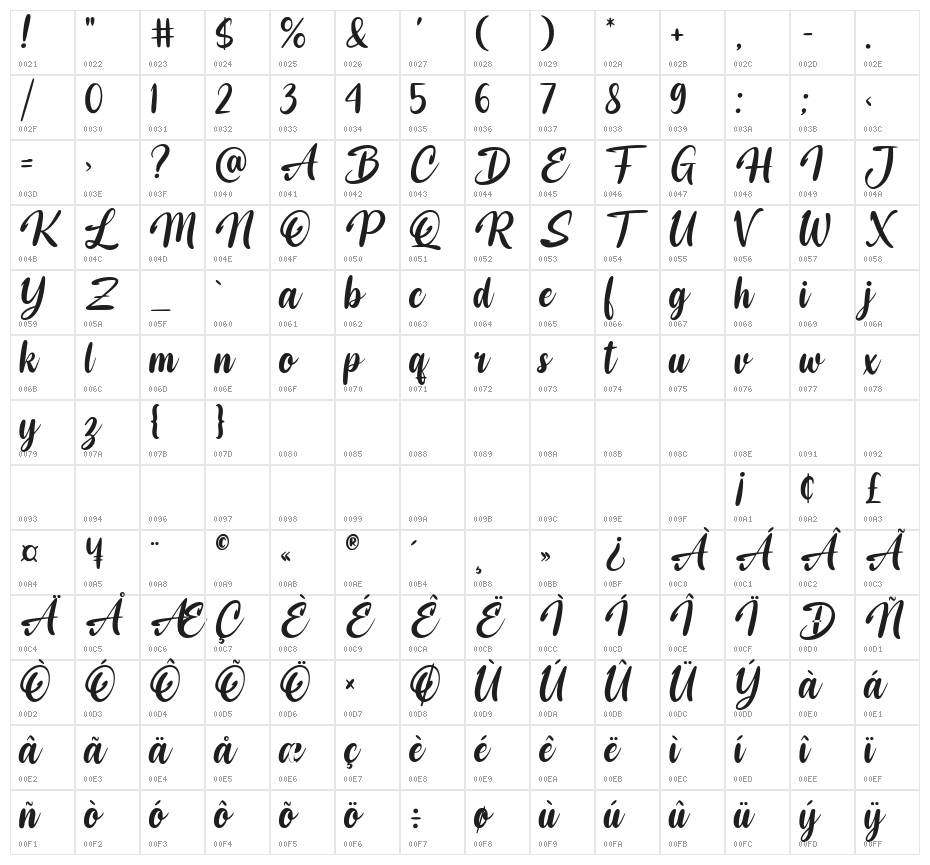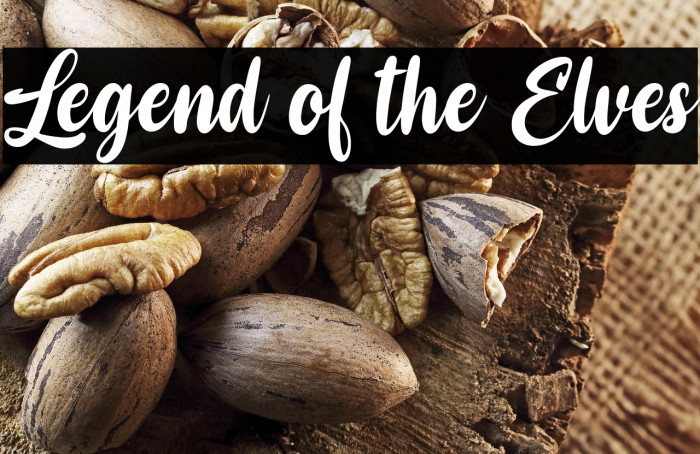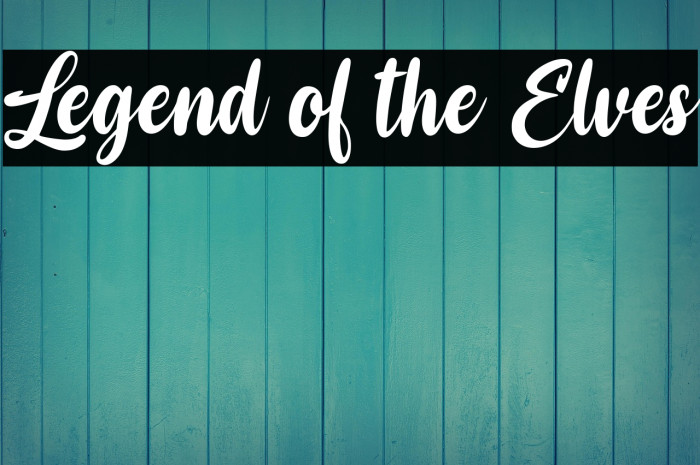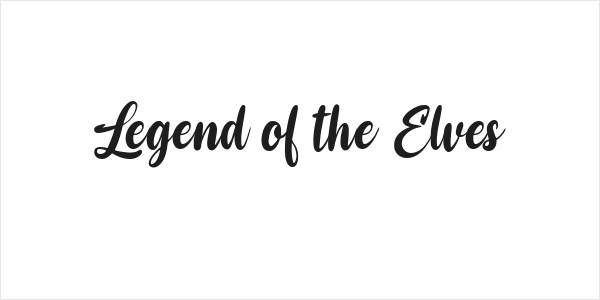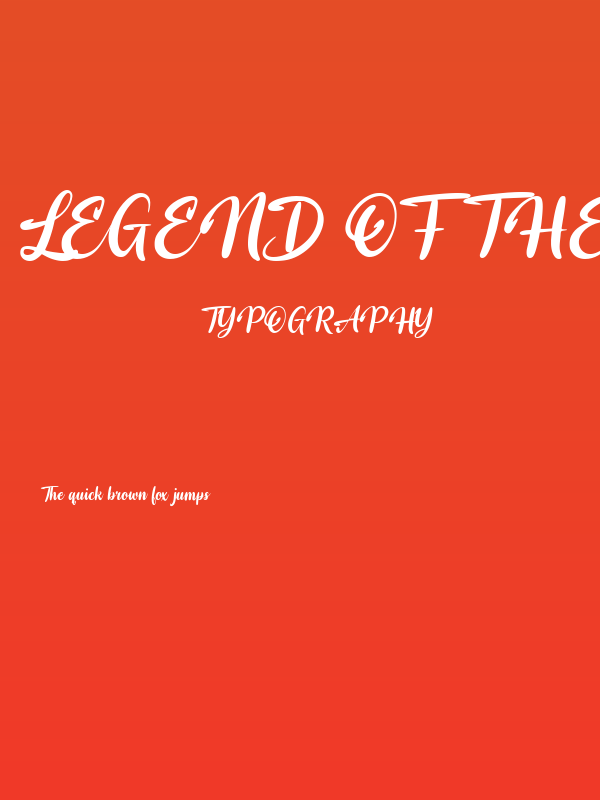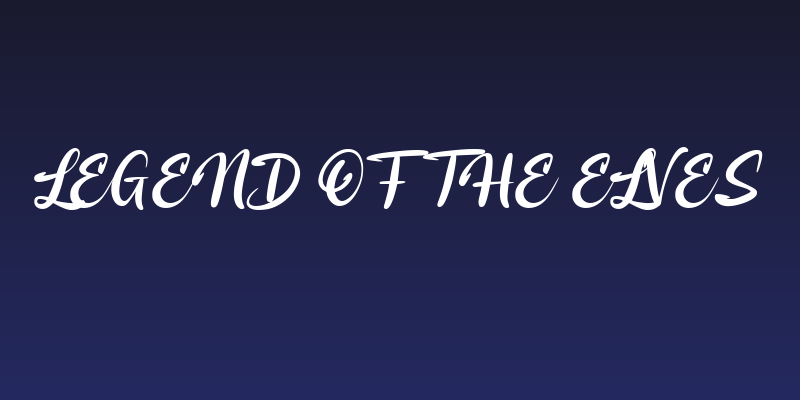
Legend of the Elves Font
Legend of the Elves Description
This font features a flowing, cursive style with elegant, sweeping curves and a handwritten feel. The uppercase letters are bold and expressive, while the lowercase letters maintain a consistent, smooth flow. The numerals are distinct and easy to read, complementing the overall aesthetic. Special characters are designed with the same attention to detail, ensuring a cohesive look across all glyphs. The font's style is reminiscent of calligraphy, with a modern twist that makes it suitable for a variety of applications.
| Proposed Projects | Ideal for wedding invitations, greeting cards, logos, and branding materials. |